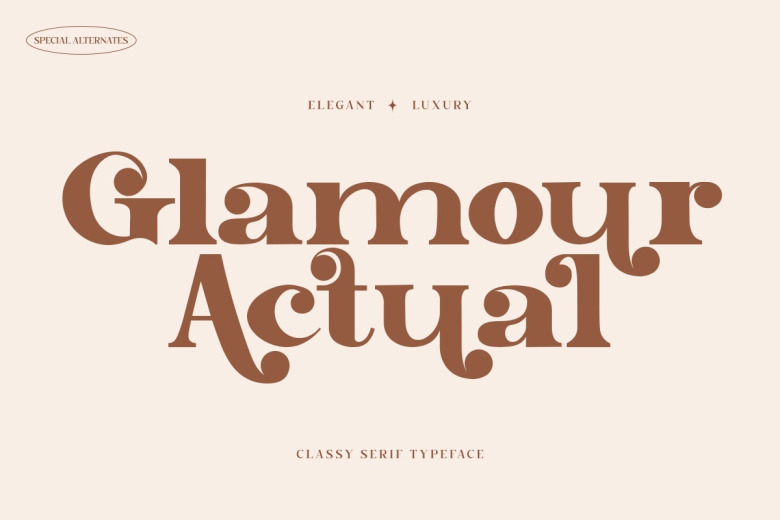
Glamour Actual Font
Glamour Actual is a beautiful and timeless serif font. Pick it up and you get everything you need to create high-quality design as you go. You can tell from looking at the beautiful sarong that her artsy and colorful life is full of surprises at every turn.
This font is particularly good for girlie designs or text, and especially those that have to do with the clothing industry. Over 15058 unique glyphs plus swlginches to run together meant anything you wanted on paper was possible.
Glamour Actual Serif Font